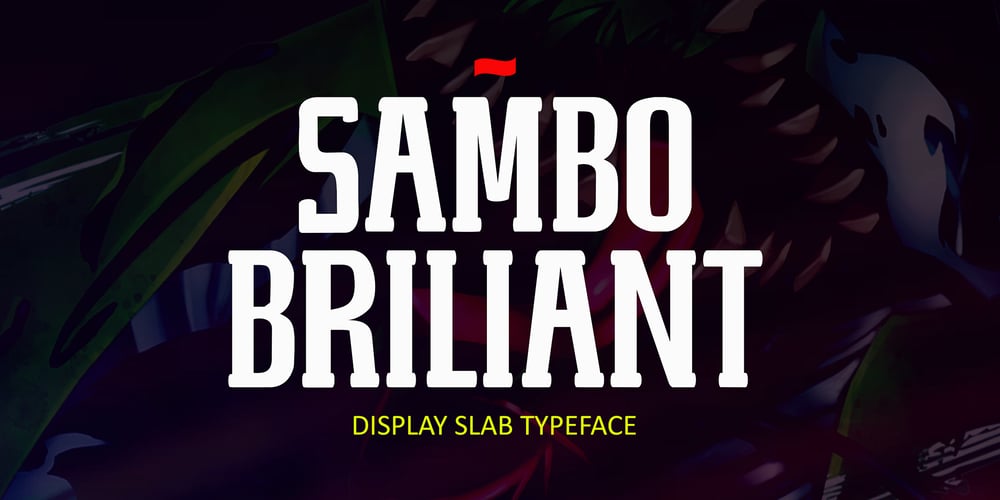
Sambo Briliant Font Family was designed by Afri Giani and published by Gian Studio. Sambo Briliant contains 1 styles and family package options. Brilliant Sambo Featuring Slab Serif totality and elegance. One of my most recent first releases, naturally drawn with pinpoint accuracy. Sambo Brilliant has the perfect amount of simplicity and subtlety for your next project. It perfectly represents the retro and vintage aesthetic. I recommend this font for your next logo, invitation, and home decor project that needs a succinct alternative combination touch!Sambo Brilliant appears with strong characters available:Get inspired by the image above and feel free to share with me what you get by using this font.